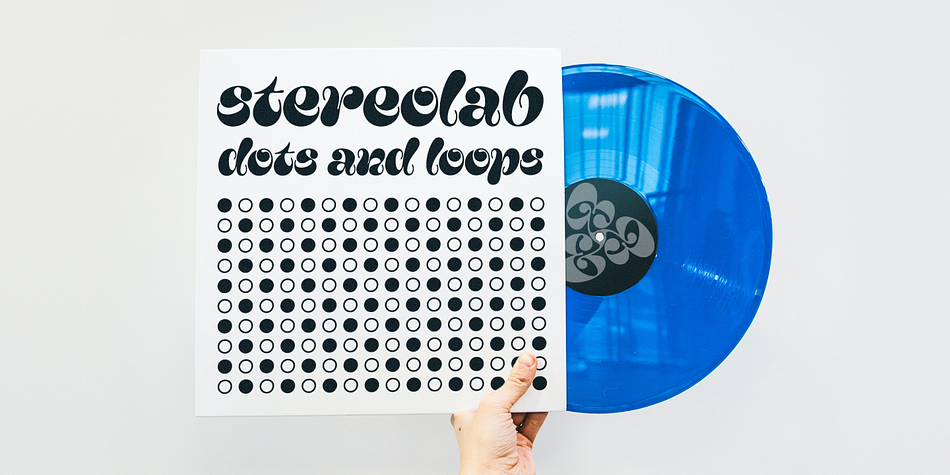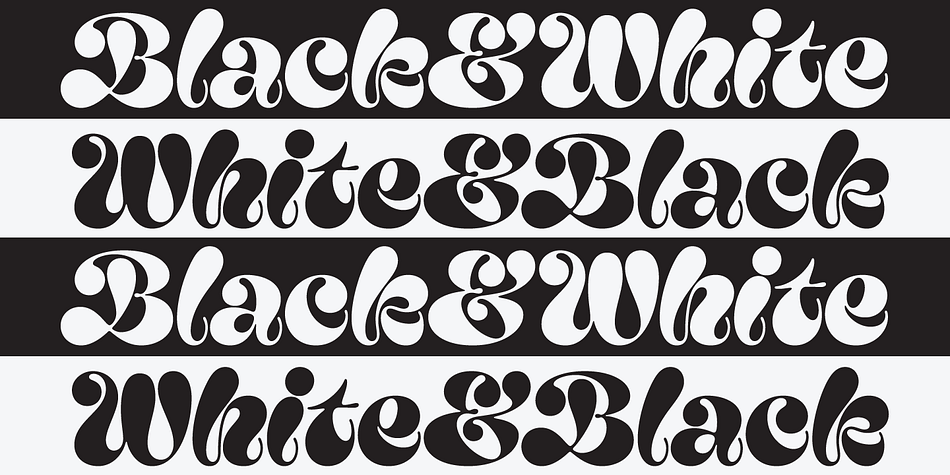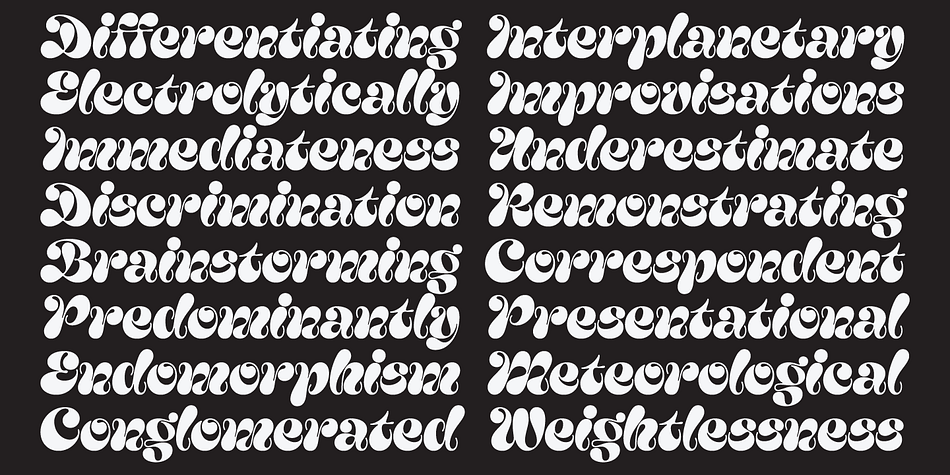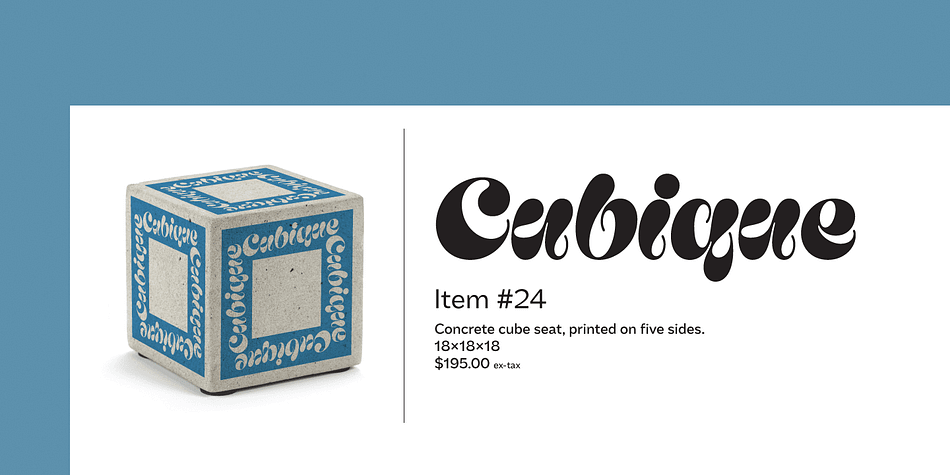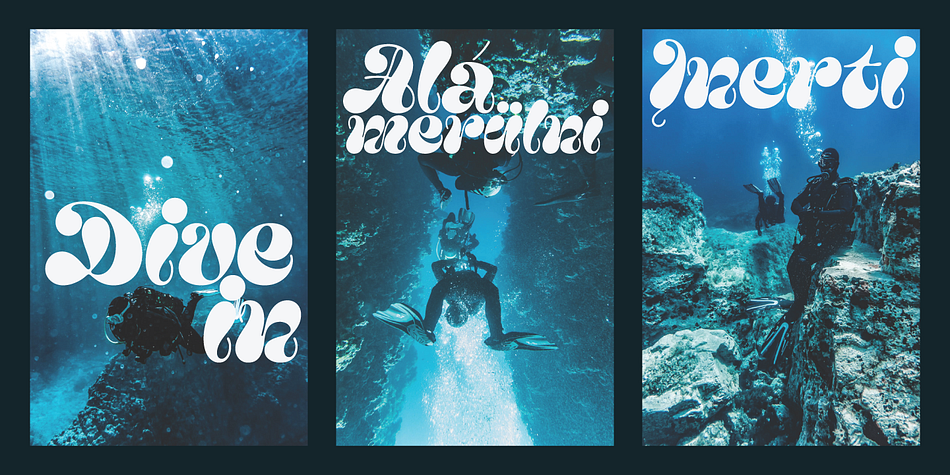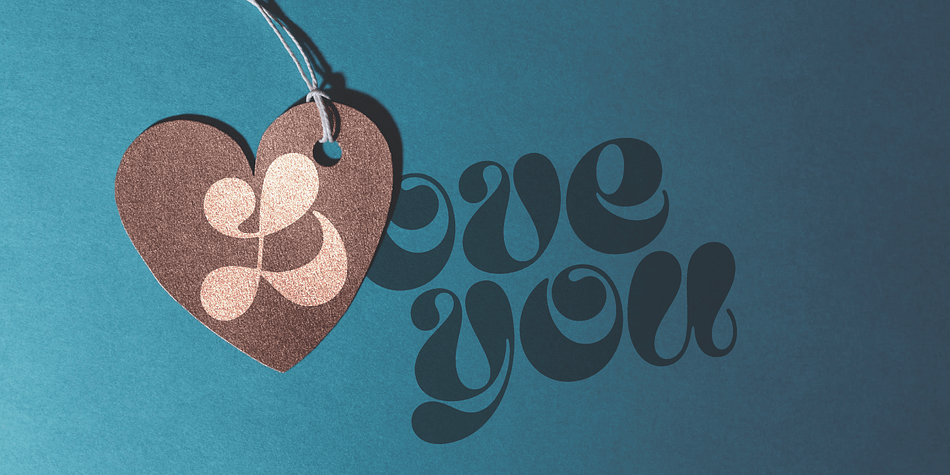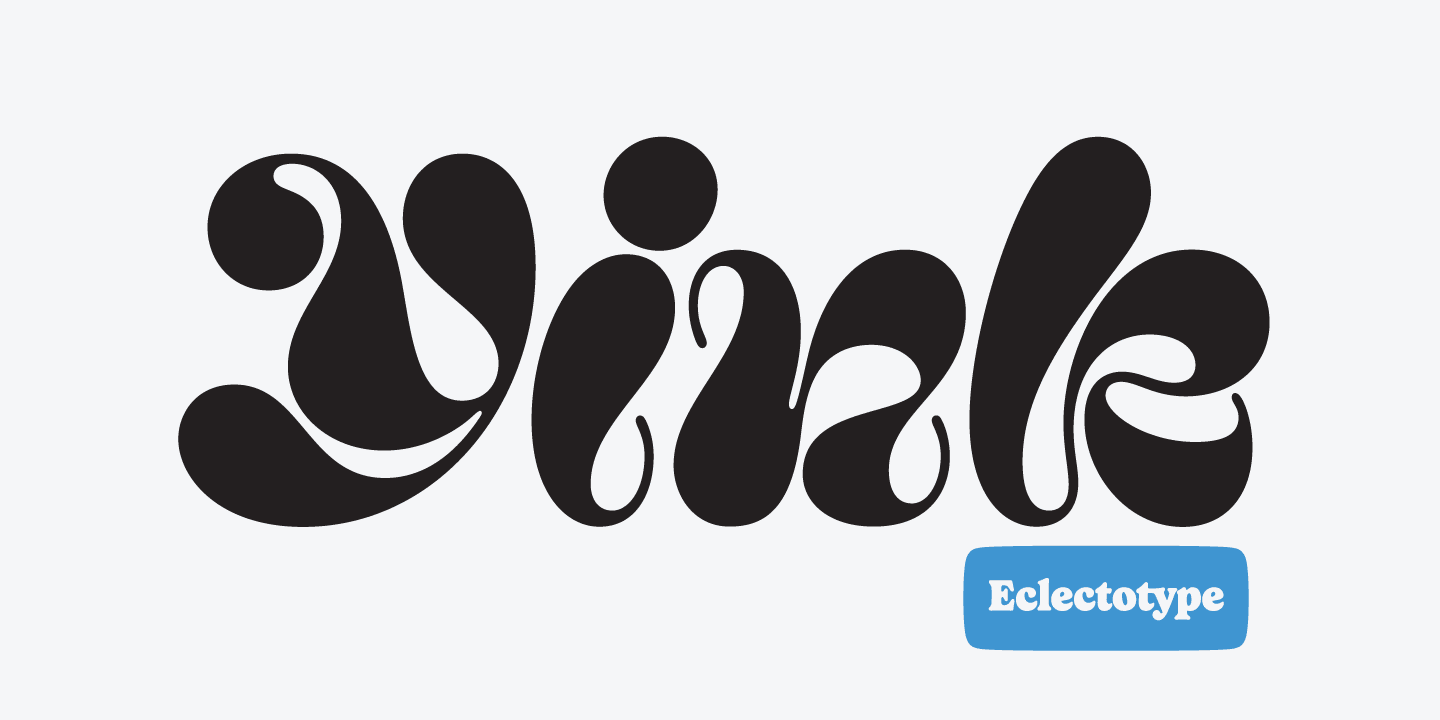
Designed by Dave Rowland, Yink is a display font published by Eclectotype Fonts.
Yink takes big, bulbous, ball terminals up a notch, by repeating the shapes not only in the black but in the white space too. This interplay between black and white shapes is reminiscent of the yinyang symbol in places, which is where the name Yink originates. It’s a shamelessly over-the-top font, and should be set large.
There’s a handful of OpenType features, including ligatures and alternates:
Ligatures for ff, fft, ft, tt, gj
Alternates are grouped into stylistic sets:
1. An alternate u, possibly more legible, but definitely not as much fun!
2. Again, a more boring version of m, just in case the default is ambiguous.
3. A more exuberant L
4. A blackletter informed T
5. Alternate P and R
6. An alternate 1 (one)
Foundry | Eclectotype Fonts |
Designer | Dave Rowland |